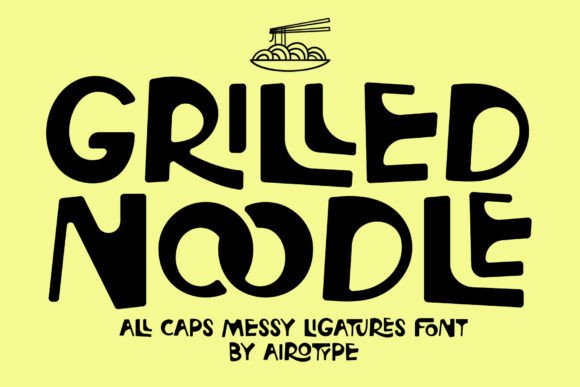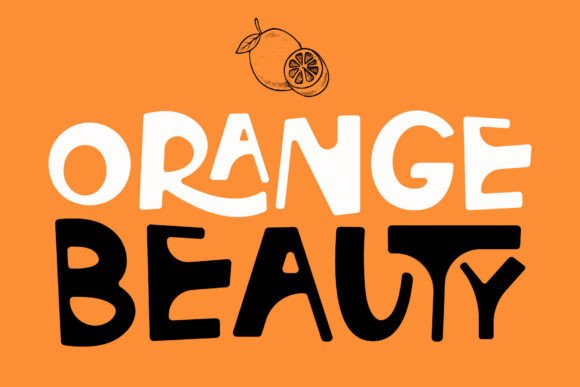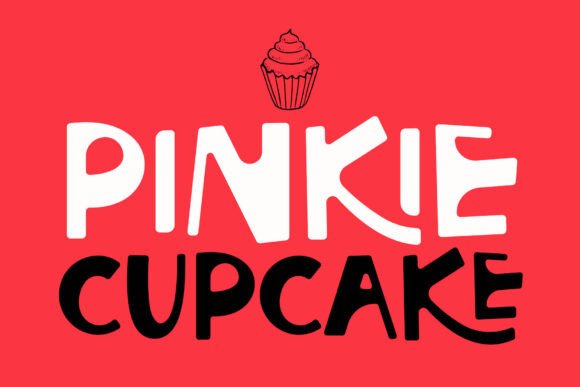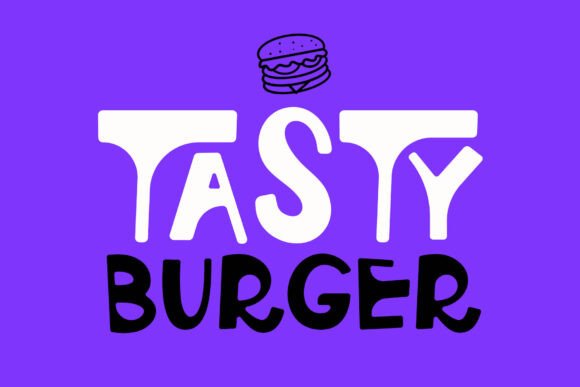
Grilled Noodle Font: A Playful Display Font with Unique Ligatures
About the Grilled Noodle Font
Elevate your designs with Grilled Noodle Font, a font that combines sophistication with readability. Grilled Noodle is a quirky, bold all-caps display font packed with messy charm and playful energy. With its bouncy shapes and irregular strokes, it brings a hand-drawn spontaneity to your designs. Perfect for branding, food packaging, posters, children’s books, and anything that needs a little fun and flavor. Comes with unique ligatures for extra character and creativity.
Grilled Noodle Font excels in headlines, short taglines, and logos where its playful energy shines. Its bold, irregular forms are ideal for eye-catching posters and packaging, particularly for brands targeting a younger demographic or those with a fun, informal brand voice. However, its unconventional letterforms make it unsuitable for body text or UI elements requiring high readability.
This font’s inherent messiness and boldness work best when paired with clean, simple counterparts. Consider pairing it with a geometric sans-serif for a strong contrast, or a classic serif for a touch of sophistication that tempers its playful nature. A subtle script font could also add a layer of elegance, softening its raw energy.
Grilled Noodle’s overall personality is best described as quirky and friendly, with a touch of youthful rebellion. Its imperfect forms communicate a handcrafted feel, making it perfect for brands that want to project authenticity and a sense of fun.
Grilled Noodle Font Usage Examples
Grilled Noodle Font Example